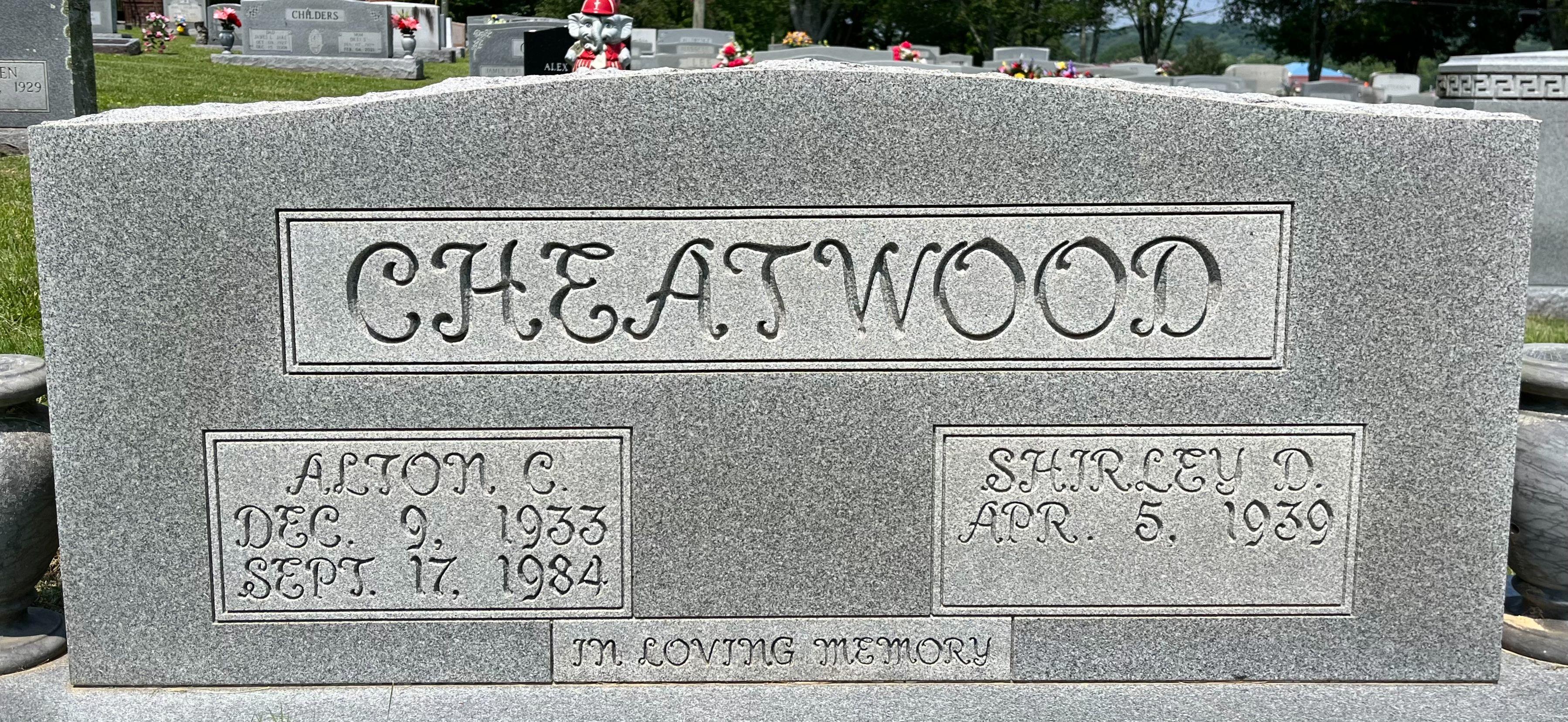
This is an old metal Spacerite alphabet named Scriptural Art, originally designed by memorial designer Conrad Kenerson. However, the ‘T’ appears to have been replaced by the maker of this monument with one of their own design. There is a poorly drawn version available in the Monu-Cad software, but there are currently no other digital versions available.